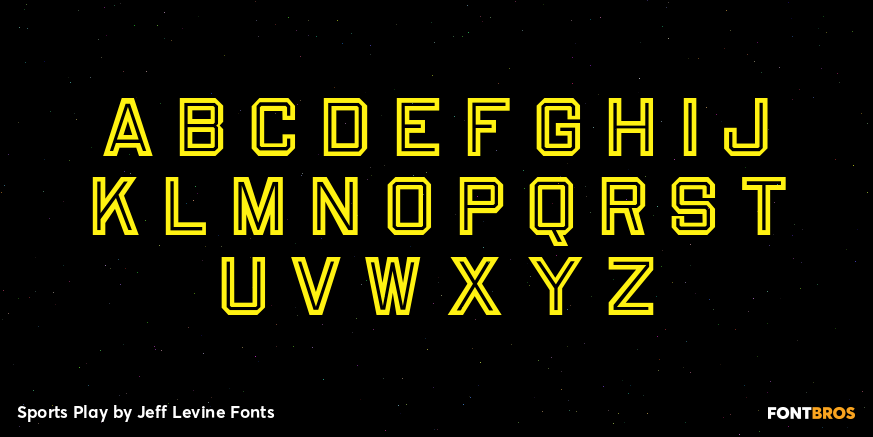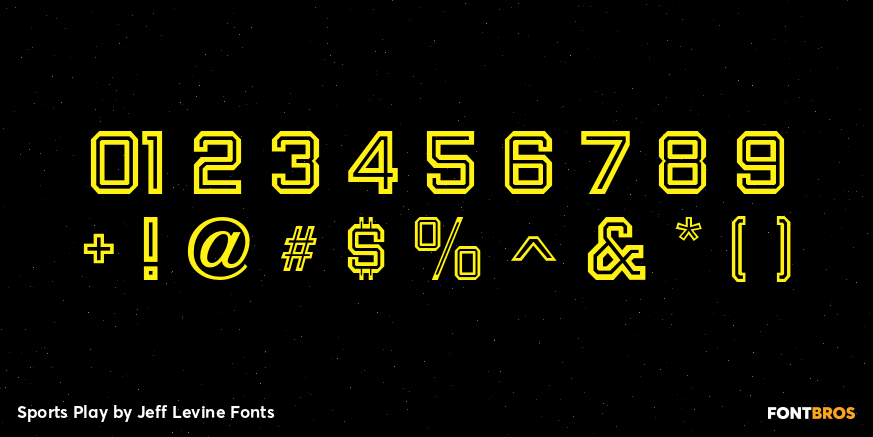
Sports Play
Re-drawn and modified from a set of early 1900s die-cut sign letters, Sports Play JNL is a chamfered typeface with an inline that reflects sports-themed topics.
Sports Play by Jeff Levine Fonts